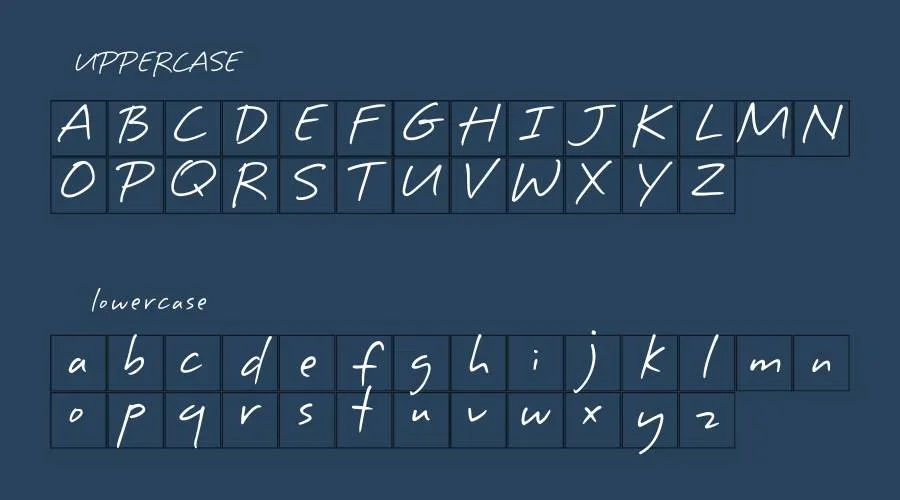
Desert Dog Hmk Font
About Desert Dog Hmk Font
In this article, we shall present to you a new elegant and attractive typeface. The Desert Dog Hmk Font was invented by a famous graphic designer named Jovana Joci? with a unique and modern texture look. You may get it free from here and the subfamily of this typeface is regular.
This font supports various international languages such as English, Latin, Greek, and many more. It contains different types of styles and weights such as bold, italic, and regular.